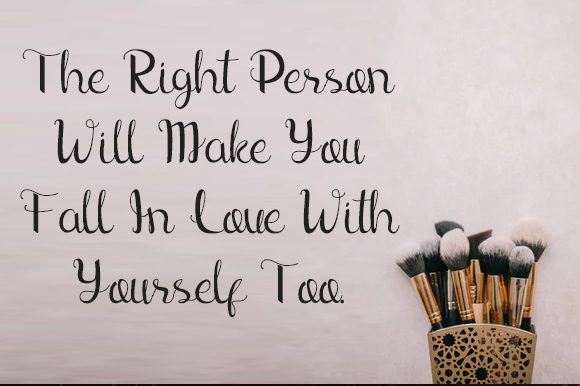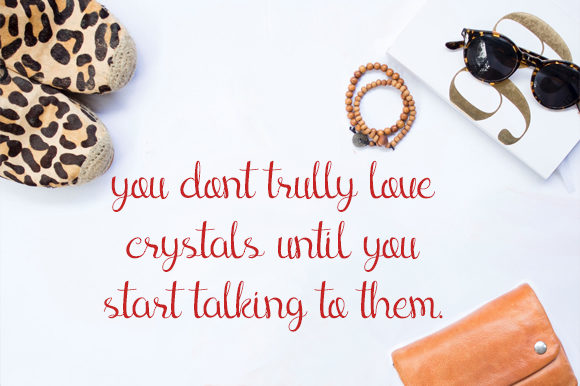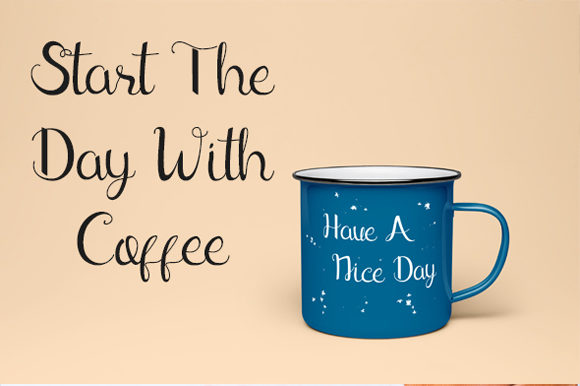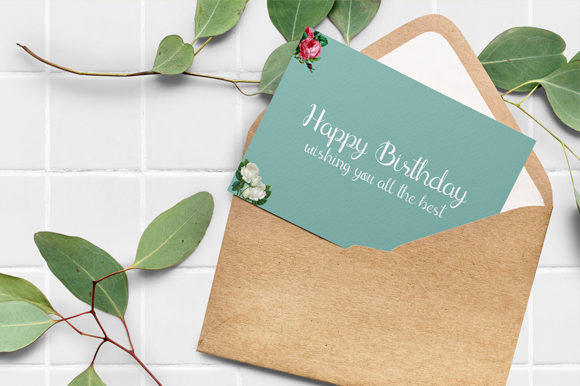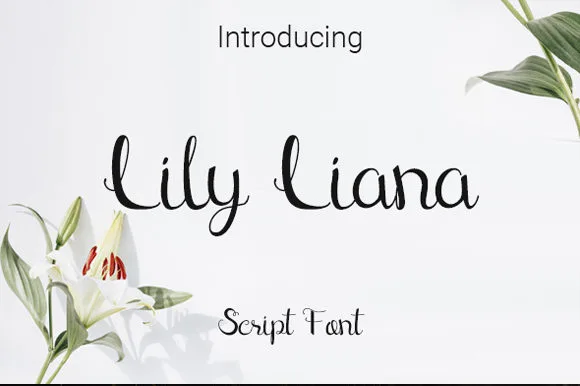
Lily Liana Font
About Lily Liana Font
Introducing Lily Liana, a delicate, elegant, and flowing handwritten font that exudes beauty and grace. This font is a true gem, thoughtfully designed with beautiful and well-balanced characters, making it a perfect match for a wide range of design projects. Add Lily Liana to your most creative ideas, and experience how it breathes life into your creations, elevating them to new levels of enchantment and allure.
Lily Liana’s delicate and flowing style creates an air of refinement and sophistication. Each letter glides effortlessly, as if crafted with the finesse of a skilled calligrapher. Whether you’re working on wedding invitations, love letters, inspiring quotes, or any other creative endeavor, Lily Liana adds a touch of elegance that captivates and delights.
The font’s versatility knows no bounds. As you embrace Lily Liana, you’ll discover how seamlessly it complements a wide variety of design projects. From branding and logo design to social media graphics, blog headers, and digital artwork, Lily Liana’s elegance enhances your creations with its exquisite appeal.
Imagine using Lily Liana for special moments and cherished occasions. The font’s delicate and elegant touch elevates the emotions and atmosphere, creating an enchanting experience for your audience.
In typography art, Lily Liana becomes a captivating centerpiece. Use it to create stunning prints that adorn any space with beauty and grace. The font’s well-balanced characters add an element of sophistication to your artwork, making it a focal point of admiration.
For quotes that resonate with authenticity and warmth, Lily Liana brings an aura of timeless wisdom. Whether shared on social media or showcased on beautifully printed wall art, your messages will captivate with a touch of elegance.
Greeting cards and stationery become works of art with Lily Liana. Be it birthdays, holidays, or special moments, the font’s delicate and flowing script makes your greetings truly stand out, leaving recipients in awe of your thoughtful designs.
In conclusion, Lily Liana is more than just a font; it’s an embodiment of delicate beauty and elegance. With its flowing handwritten style and well-balanced characters, Lily Liana becomes an indispensable tool for all your design projects. Embrace the beauty and grace of Lily Liana and watch as your creations come alive with enchantment and allure. Let your creativity soar in the delicate and elegant embrace of Lily Liana, the handwritten font that defines sophistication and beauty.